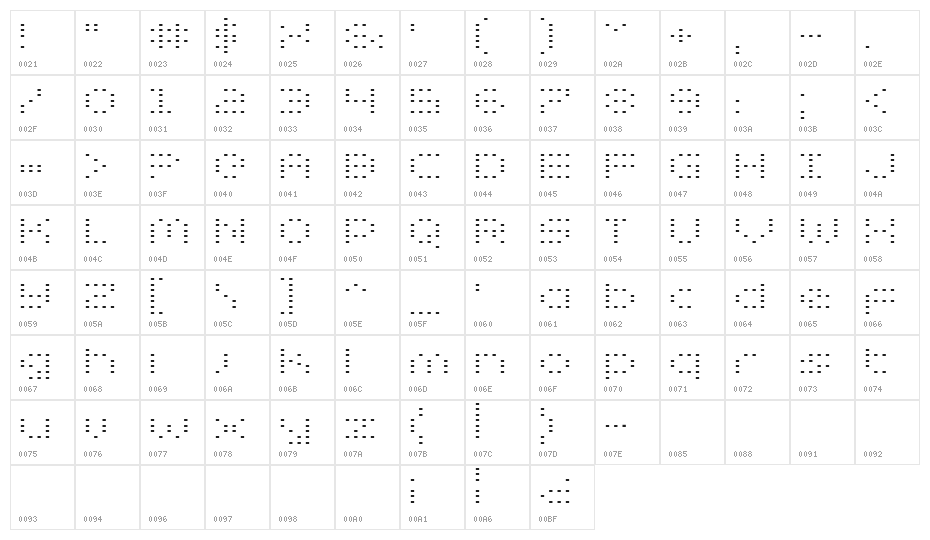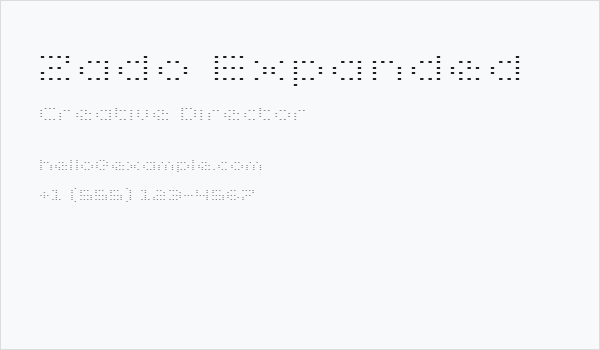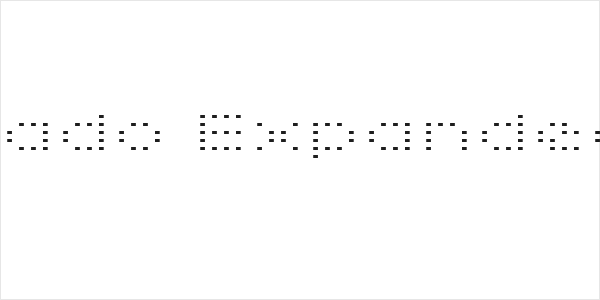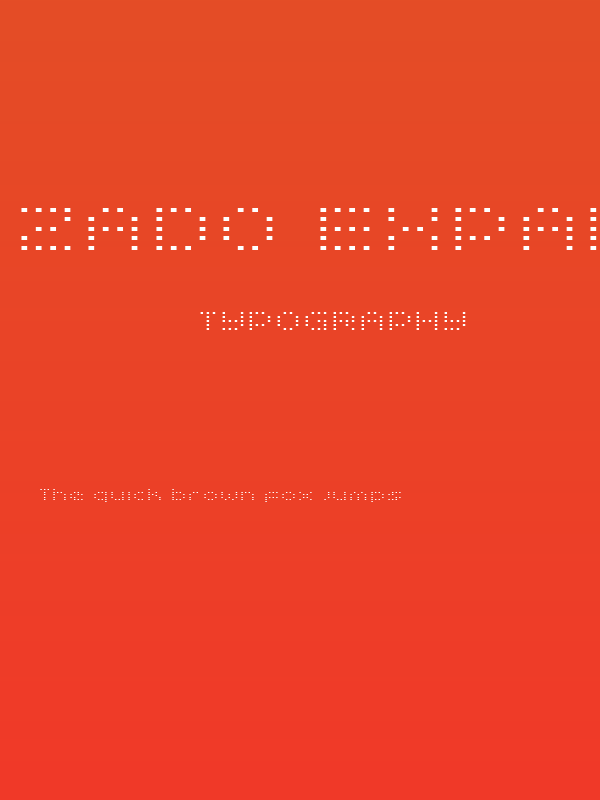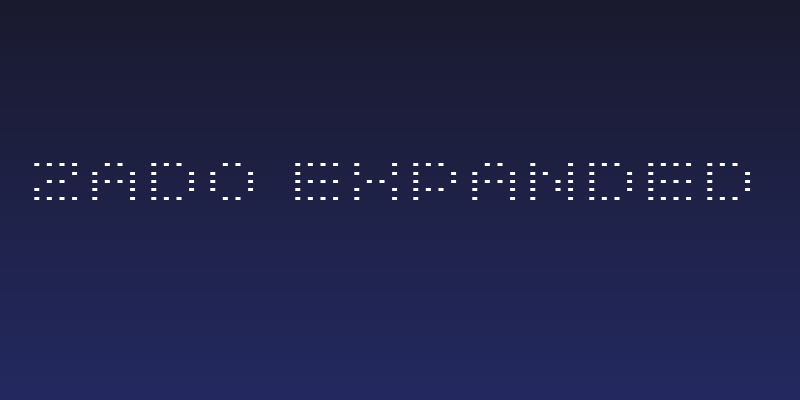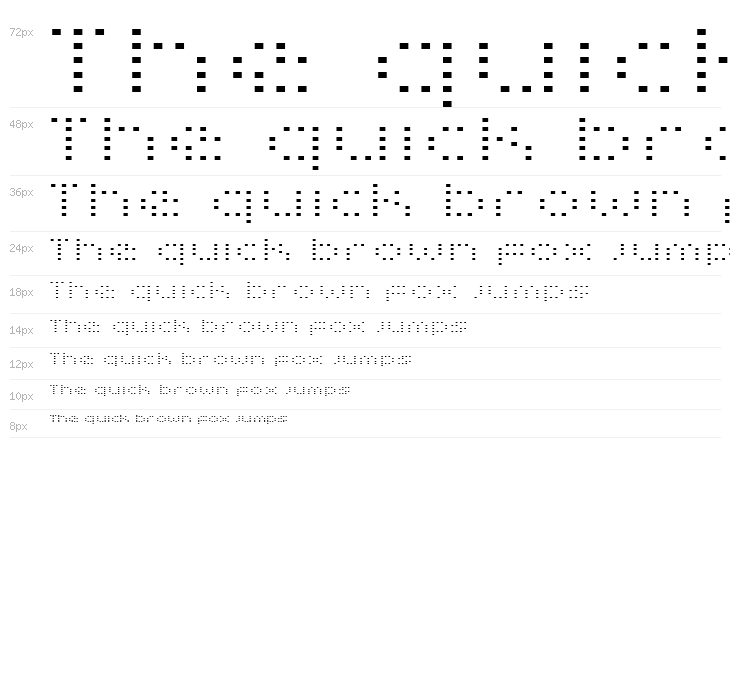
Zado Expanded Font
Zado Expanded Description
This font features a unique dot matrix style, reminiscent of digital or electronic displays. Each character is composed of a grid of small, evenly spaced dots, creating a pixelated effect. The design is clean and modern, with a consistent structure across both uppercase and lowercase letters, as well as numbers and special characters. The spacing between the dots is uniform, giving the font a cohesive and structured appearance. This style is particularly effective for conveying a sense of technology or retro digital aesthetics.
| Use Case | Logos, Headlines, Digital displays |
| Proposed Projects | Ideal for digital-themed projects, tech branding, retro video game designs, or any creative work requiring a futuristic or electronic look. |